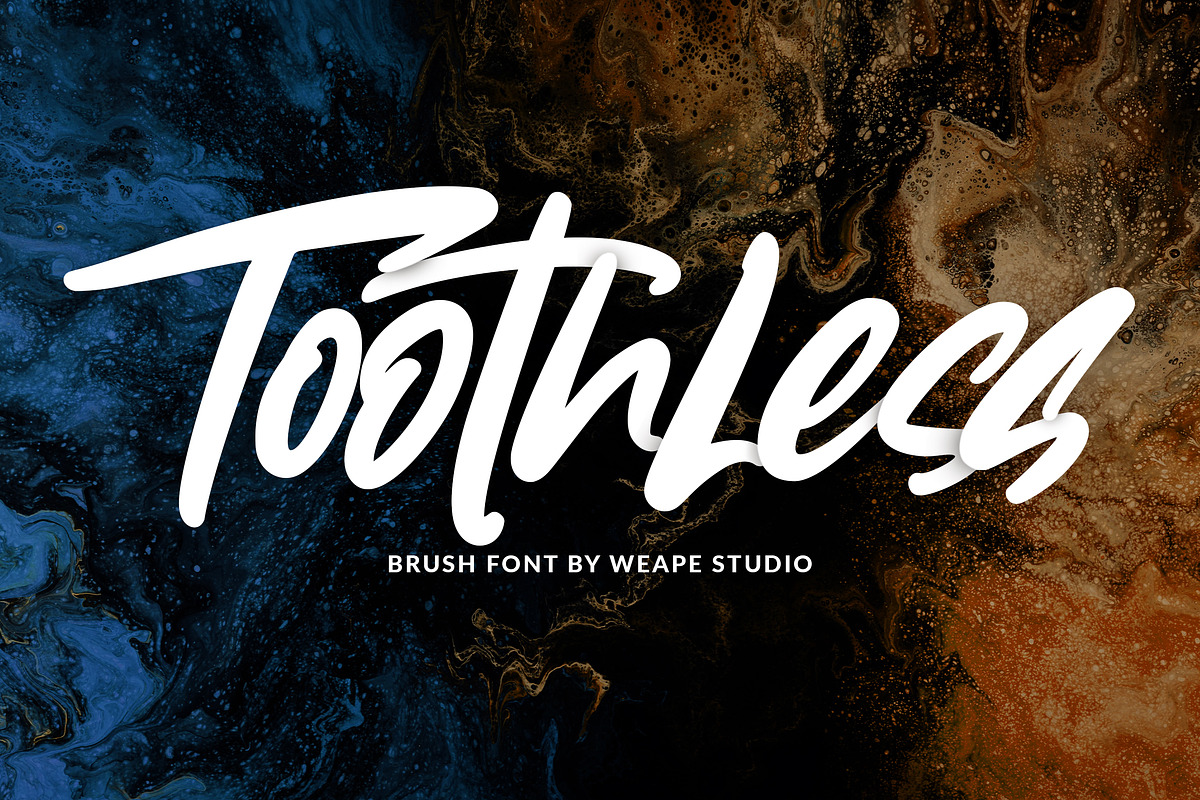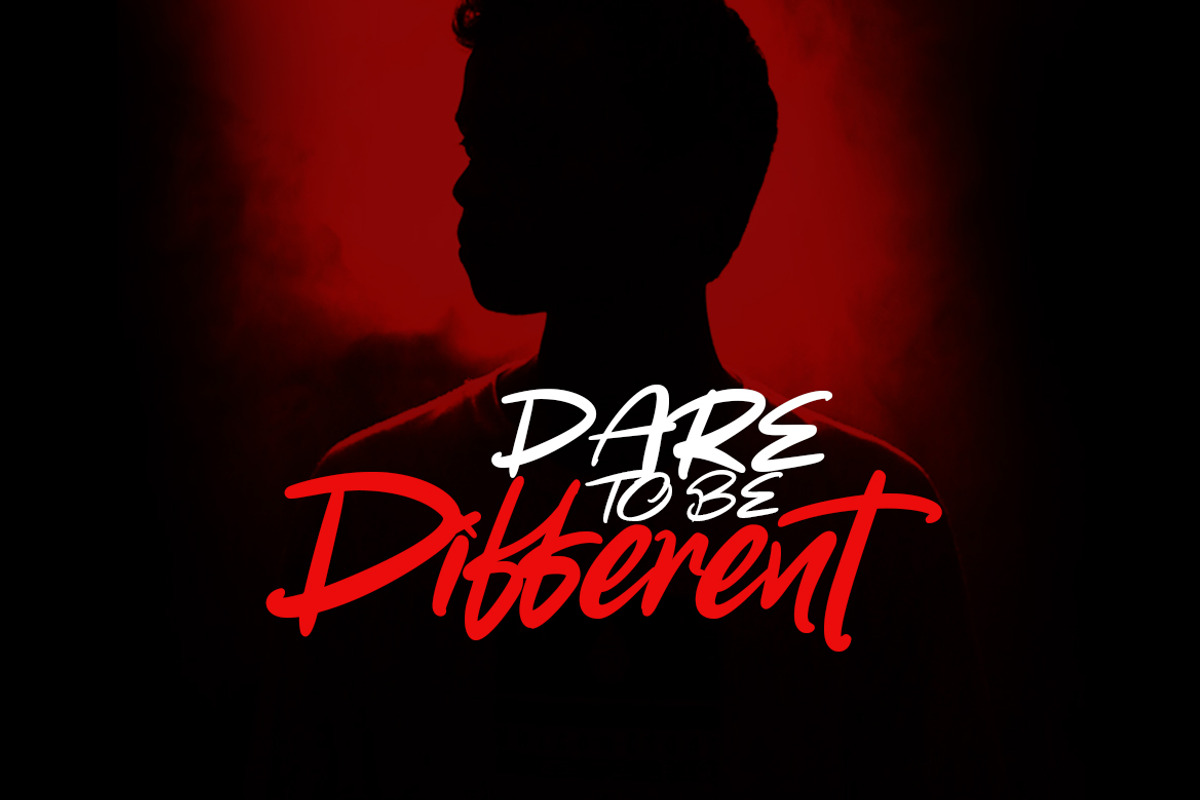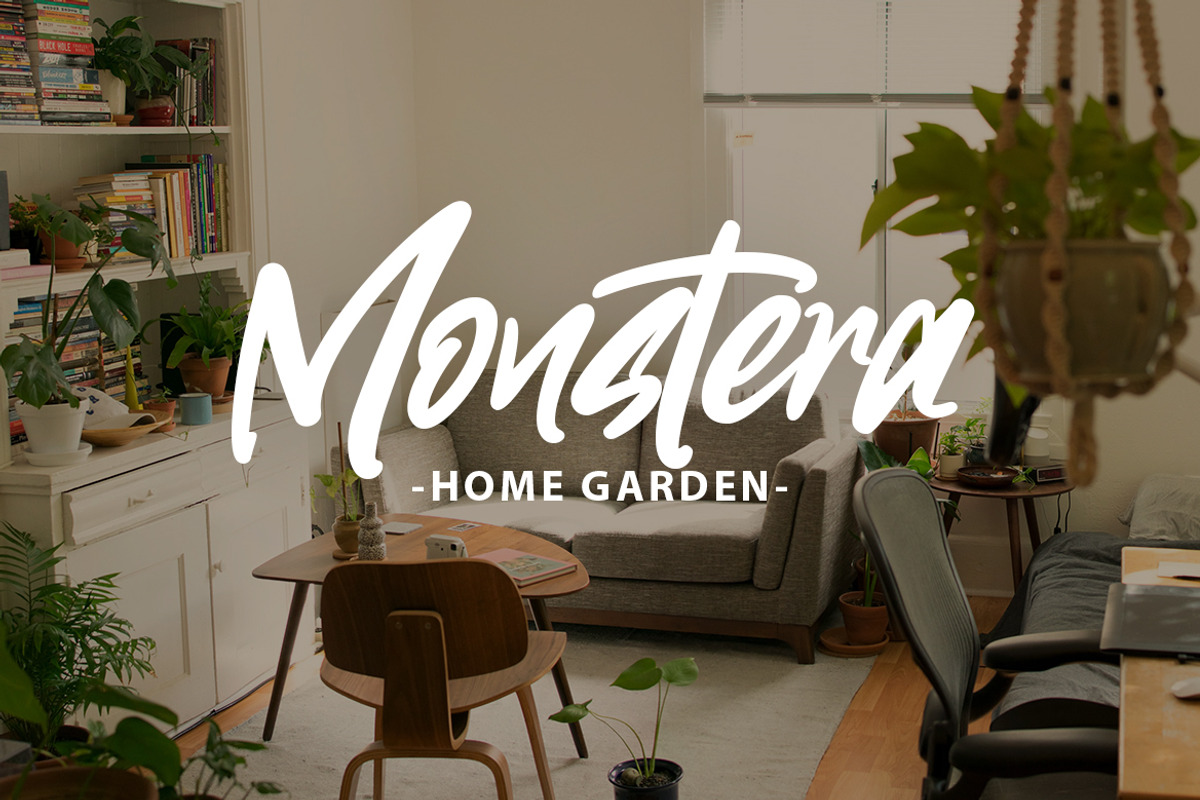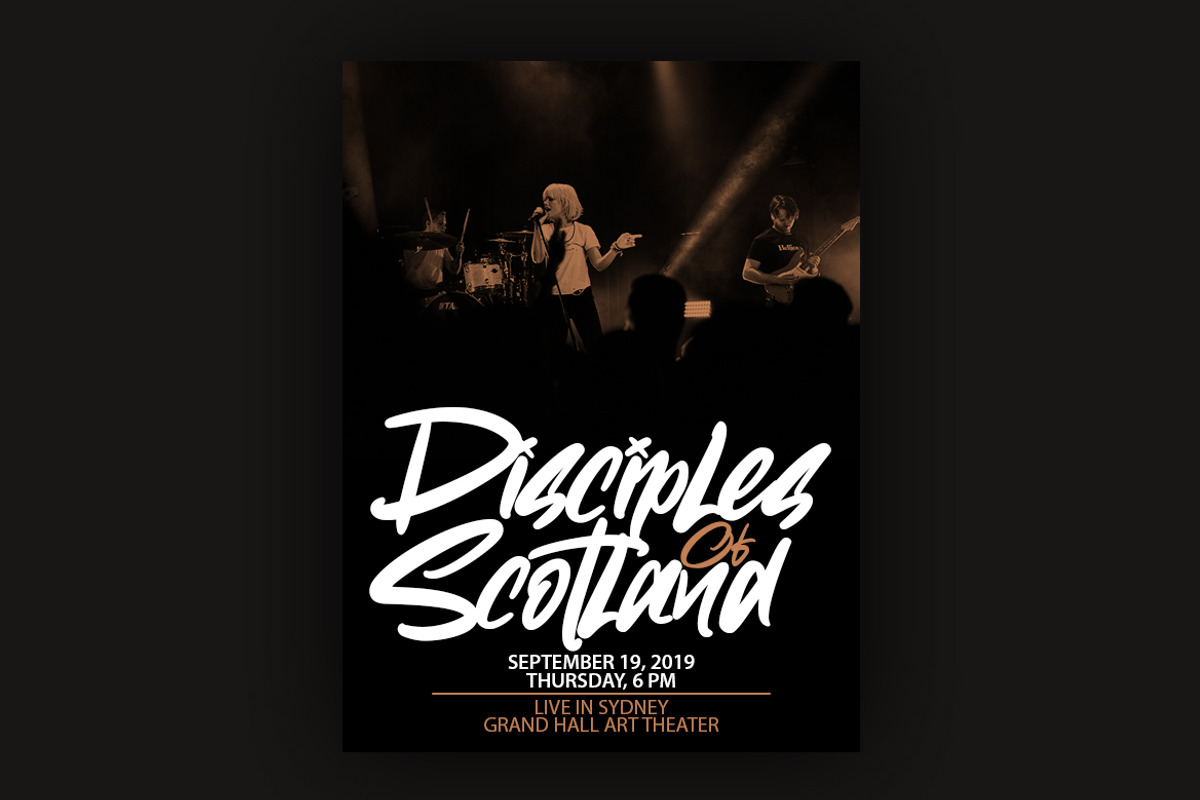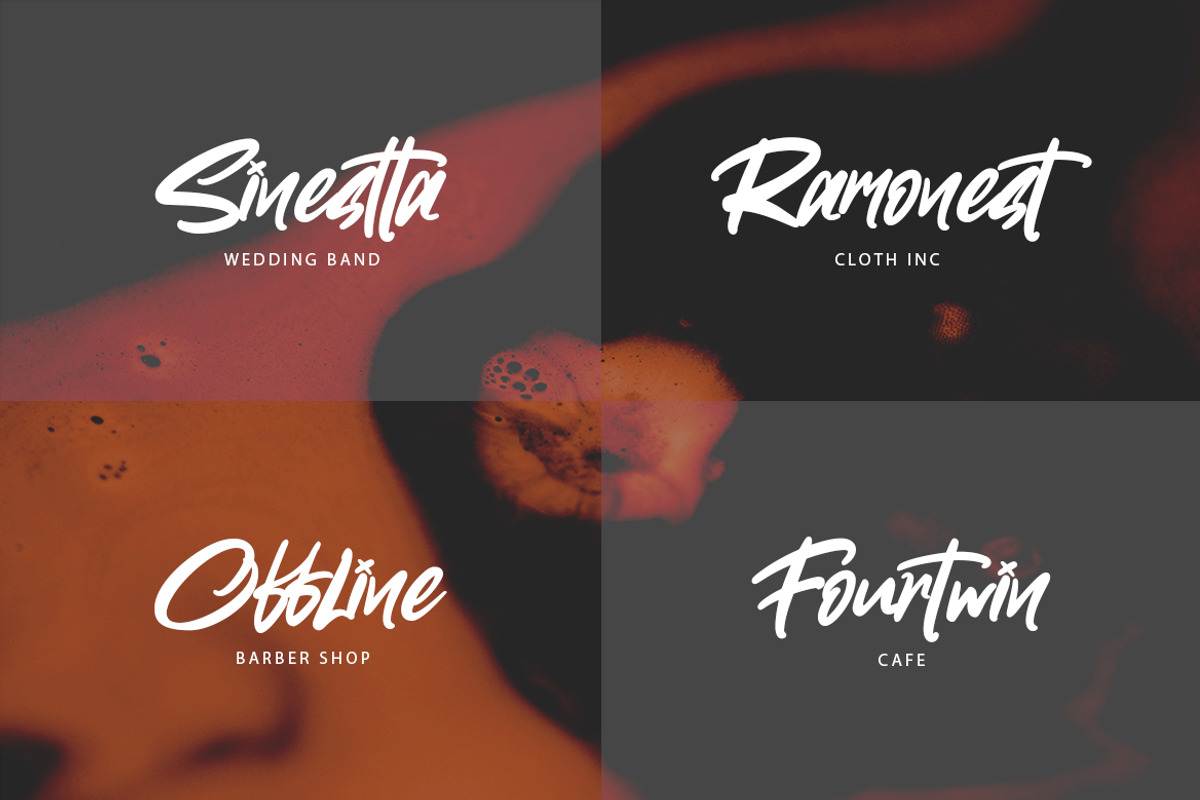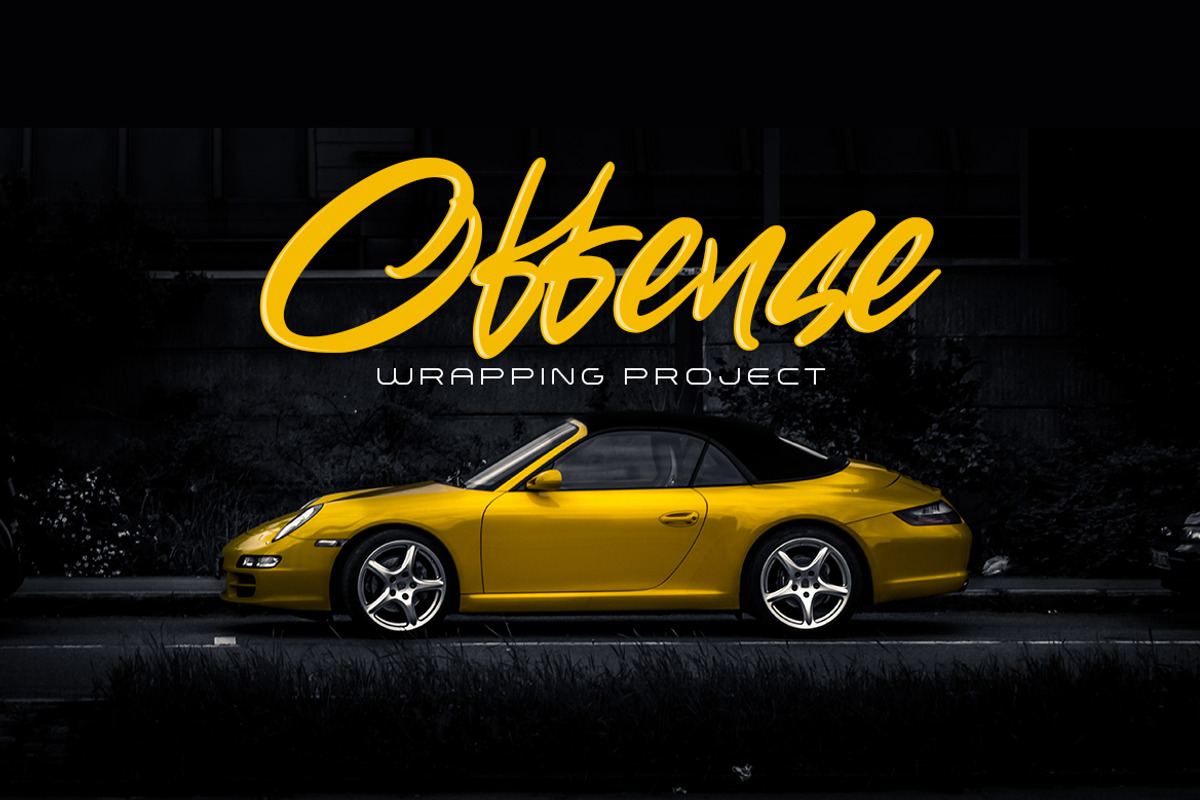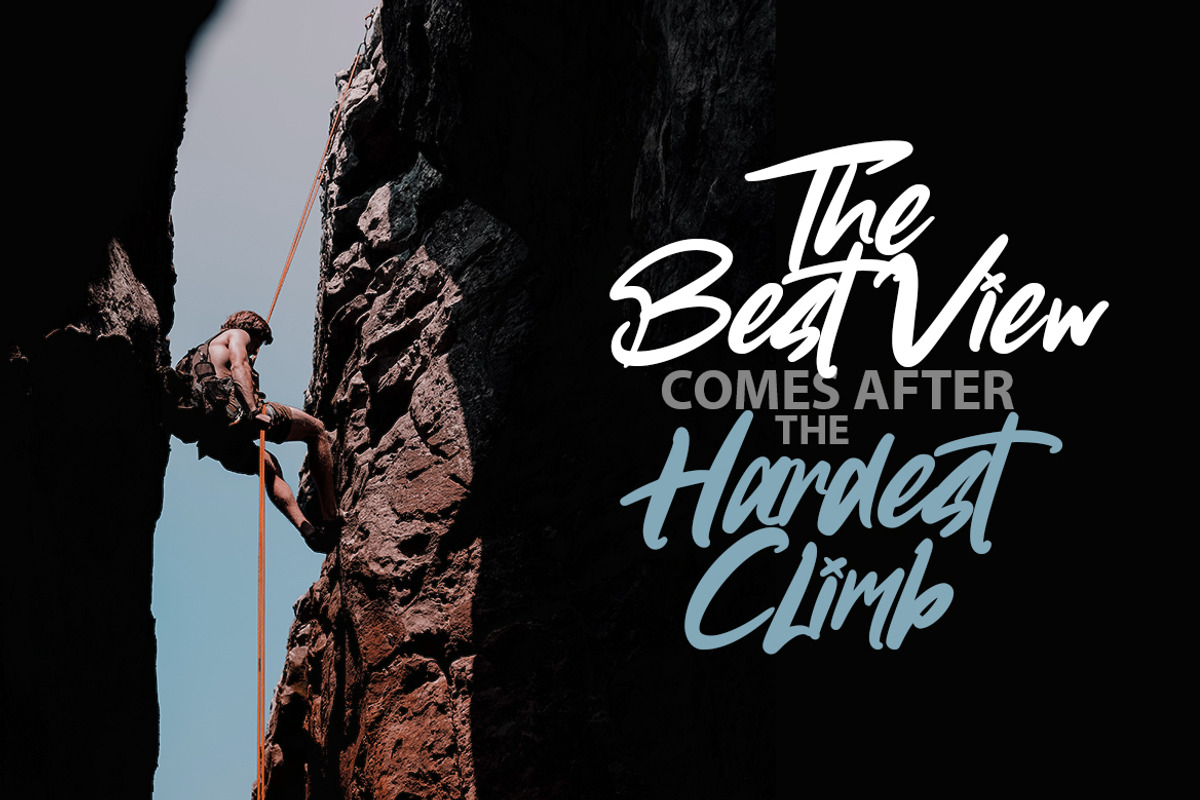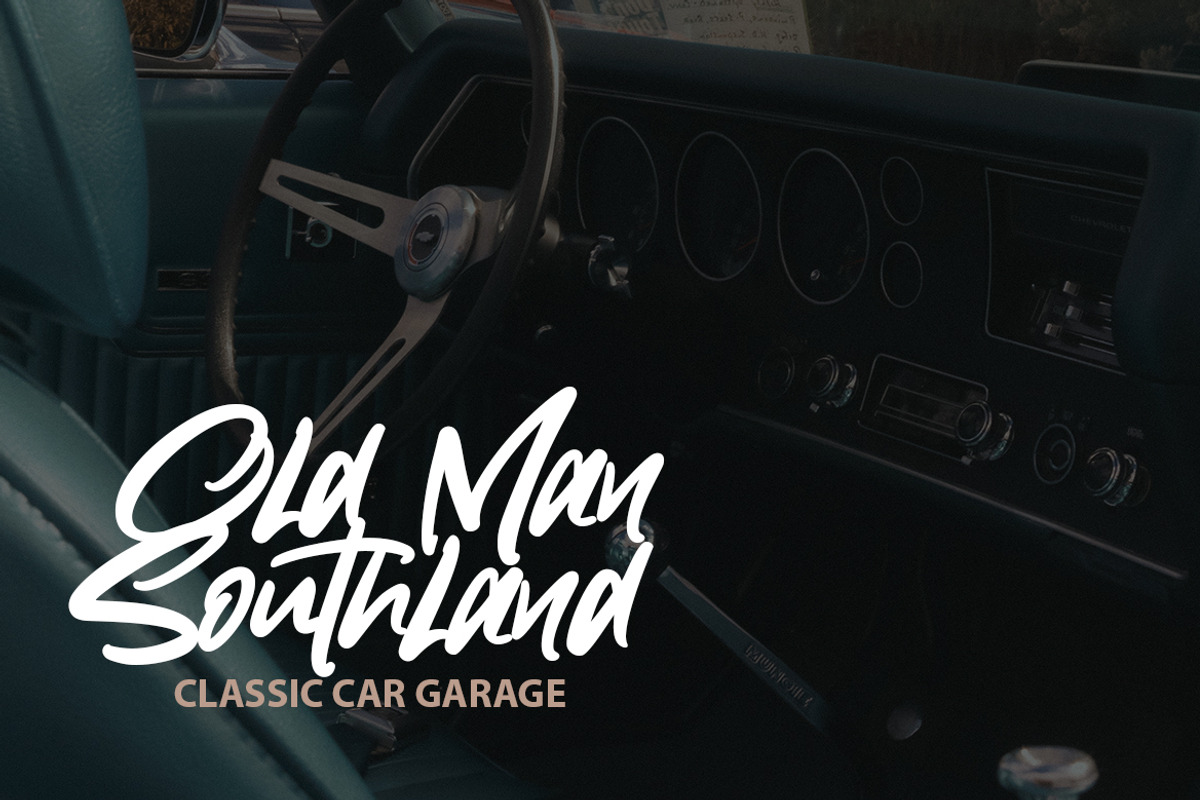
Toothless - Brush Font
Introducing Toothless Brush Font, with the stroke of hand quick. You can use and enjoy Toothless, for promotional material and anything.
And this font perfect for signature logo, handwritten quotes, product packaging, fashion magazine, photography, merchandise, branding projects, poster, social media post, book cover, flyer, and advertising. You can create easily and make it as if you wrote it yourself.
Toothless - Brush Font by Weape Studio fits naturally into Branding, posters, packaging, typography.